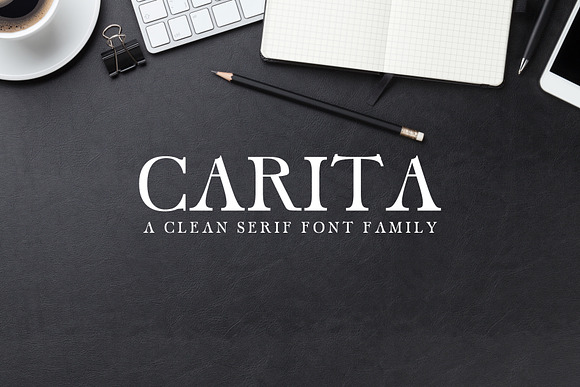
Carita Clean Serif 3 Font Family
Carita Clean Serif 3 Font Family is perfect for modern editorial design, contemporary book publishing, clean magazine layouts, professional websites, minimalist branding, corporate communications, digital publications, and sophisticated presentation materials.
Carita Clean Serif 3 Font Family is exciting because it seamlessly blends traditional serif elegance with contemporary minimalism, featuring refined letterforms and streamlined details that create exceptional readability while maintaining sophisticated visual appeal. Its clean architecture ensures outstanding performance across all modern media platforms.
Carita Clean Serif 3 Font Family family includes light, regular, and bold weights with matching italic variations, offering designers six meticulously crafted font styles for comprehensive typographic flexibility and clean visual hierarchy.
Carita Clean Serif 3 Font Family Free Download delivers premium contemporary serif typography that establishes professional credibility while embracing modern minimalism. This expertly engineered typeface collection demonstrates superior craftsmanship through its perfectly balanced proportions and streamlined serif details that enhance readability without sacrificing character. The font's refined appearance makes it ideal for publishing houses, design agencies, technology companies, and professional services seeking credible visual identity solutions that bridge traditional authority with contemporary innovation.
Editorial professionals consistently select Carita Clean Serif 3 Font Family for its exceptional versatility in both digital and print applications. The font's optimized character spacing and contemporary serif styling ensure excellent legibility at various sizes while maintaining elegant visual presence. Its comprehensive weight range provides excellent typographic hierarchy for complex editorial layouts, corporate documents, and modern user interface design requirements.
The Carita Clean Serif 3 Font Family download includes extensive language support, professional punctuation sets, and specialized characters for international project compatibility. This thorough coverage ensures seamless implementation across global markets and multilingual publications. The font's technical precision and consistent baseline alignment create polished layouts that reflect organizational professionalism and attention to contemporary design standards.
Contemporary businesses appreciate Carita Clean Serif 3 Font Family's ability to project sophistication while maintaining accessibility and modern appeal. Its balanced personality works equally well in conservative corporate environments and progressive creative contexts, making it an indispensable typography resource for organizations seeking to establish credible, contemporary brand presence through superior clean typography and exceptional readable communication.